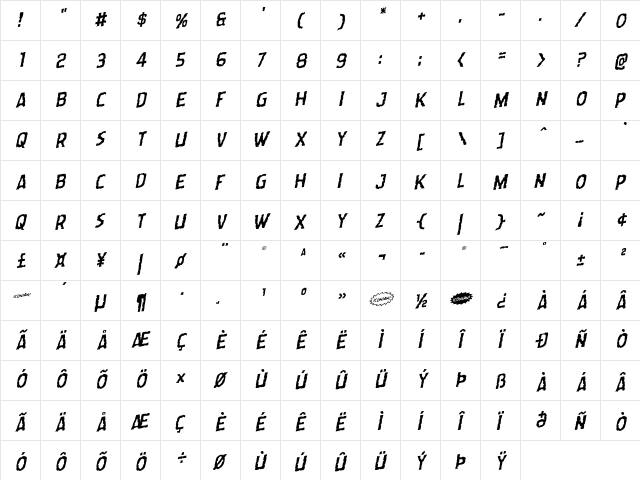
Worm Cuisine Staggered Rotalic Italic
Design Context for Worm Cuisine Staggered Rotalic Typeface
Worm Cuisine Staggered Rotalic is a composed and adaptable typeface that performs quietly and consistently across a wide range of design contexts. The dynamic lean of this cut emphasises speed and emphasis in any layout.
Pro Tip: Try Worm Cuisine Staggered Rotalic for annotation and caption copy alongside an upright companion — the contrast in angle creates a dynamic but ordered typographic system.